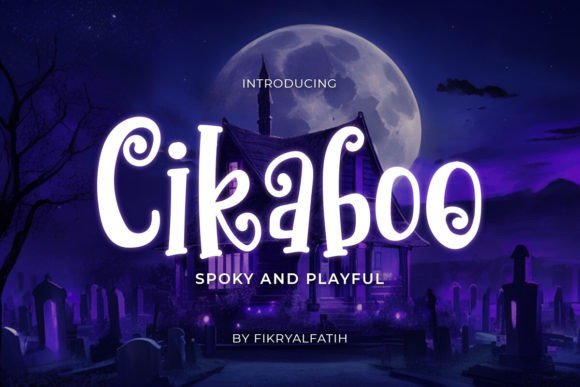
Unleash the spine-chilling charm of Cikaboo Font, a display font family that'll cast a spell on your web page designs. Crafted by the ingenious Fikry Alfatih, Cikaboo is an enchanting dance of simplicity and intrigue, perfectly capturing the spirit of Halloween.
This playful font boasts a captivating line design, complete with a mischievous tail and a hauntingly beautiful variation in thickness at its end. The result is an eerie yet inviting aura that spells magic on your web pages, beckoning visitors to explore the enchanting world you've created.
With Cikaboo Font, you'll weave an unforgettable tapestry of visual delight, captivating audiences with its unique and ghostly presence. Its simple yet striking design adds a touch of both fun and fright, creating an immersive experience that lingers in the minds of your visitors.
Picture your website, adorned with the mystical allure of Cikaboo Font. Each word, each sentence, transformed into a ghostly dance, inviting readers to embark on a thrilling adventure, where the boundaries of reality blur and imagination takes flight.
Whether it's a Halloween-themed project or a design seeking a touch of spooky sophistication, Cikaboo Font is your trusted companion, guiding you through the realm of creativity with its captivating charm.
Let Cikaboo Font be your secret weapon, the key to unlocking a world of visual enchantment. Experience the magic yourself!